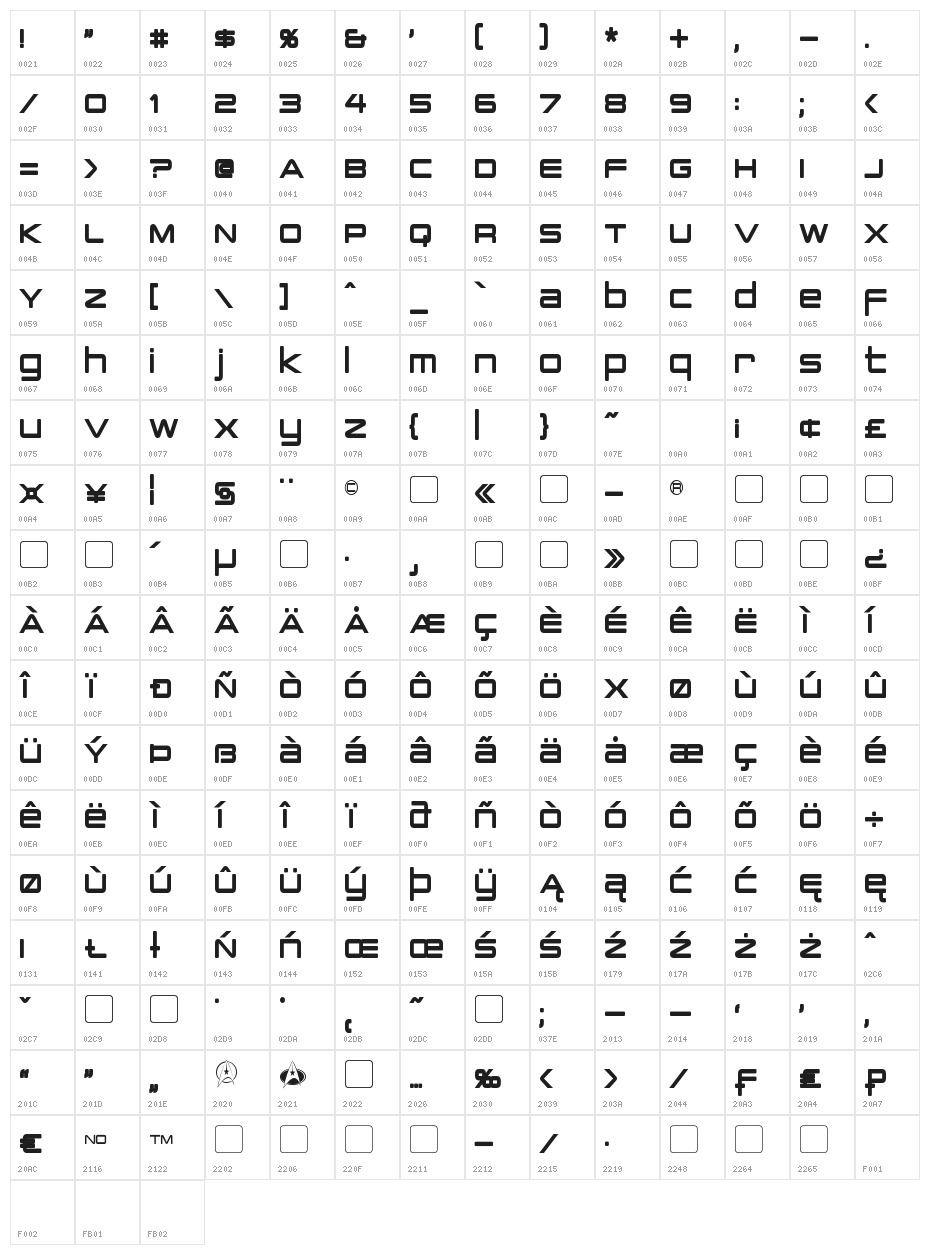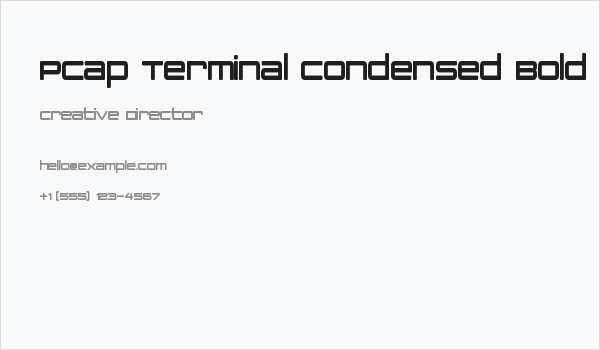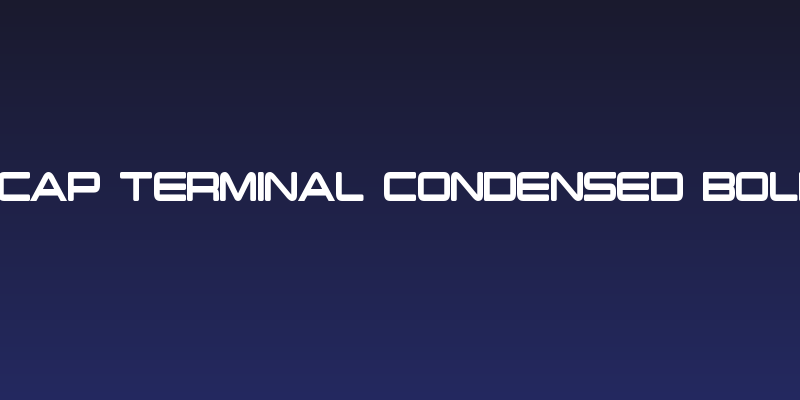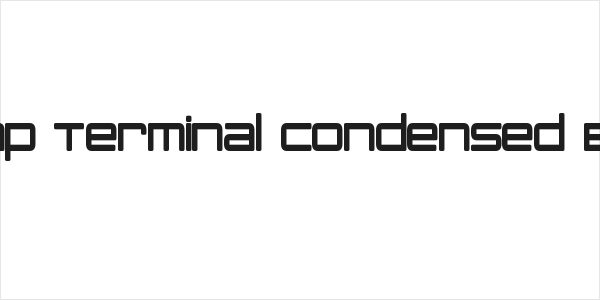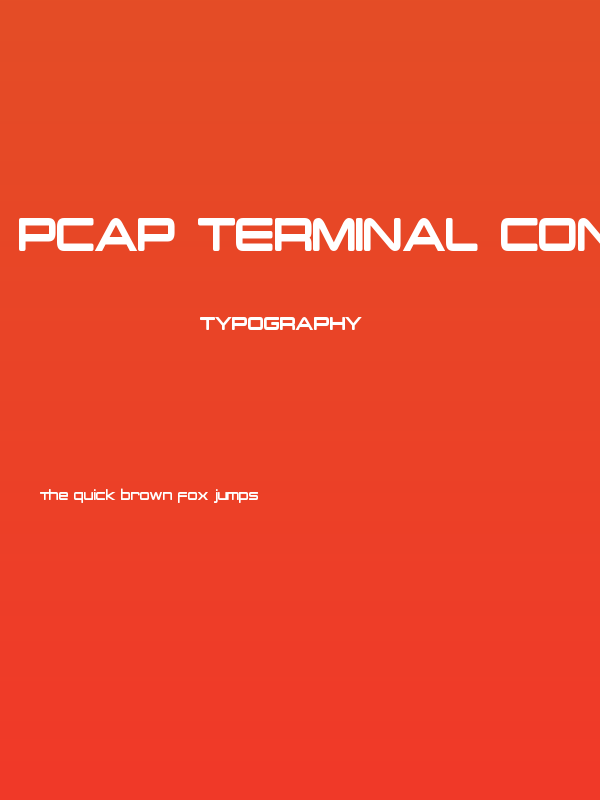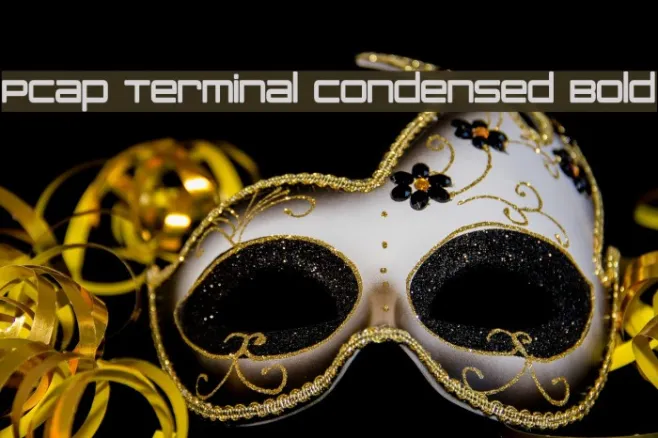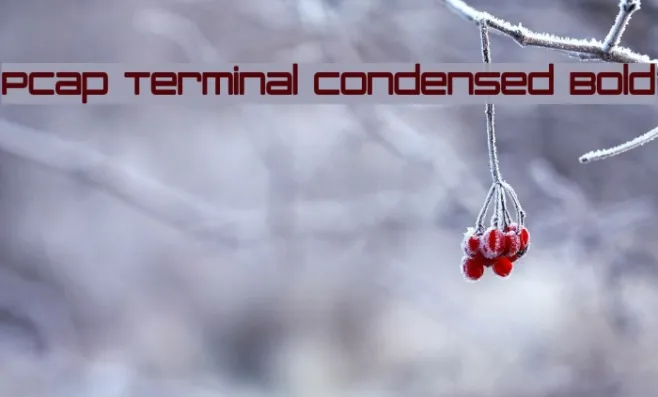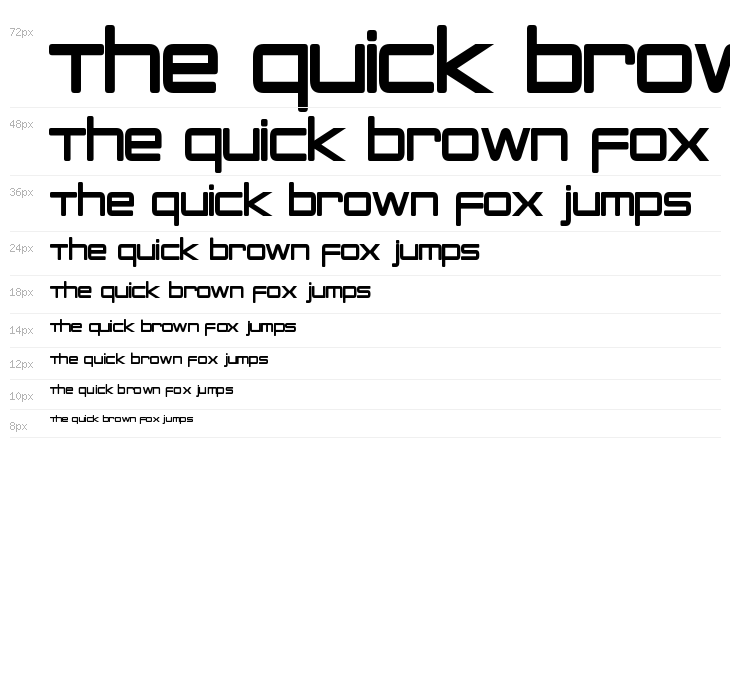
PCap Terminal Condensed Bold Font
PCap Terminal Condensed Bold Description
This font features a bold and condensed style with a modern, geometric appearance. The characters are constructed with rounded edges and consistent stroke widths, giving it a sleek and futuristic look. Its design is highly legible, making it suitable for digital displays and interfaces. The uppercase and lowercase letters maintain a uniform height, enhancing readability. The numerals and special characters are designed with the same geometric precision, ensuring a cohesive visual experience across all text elements.